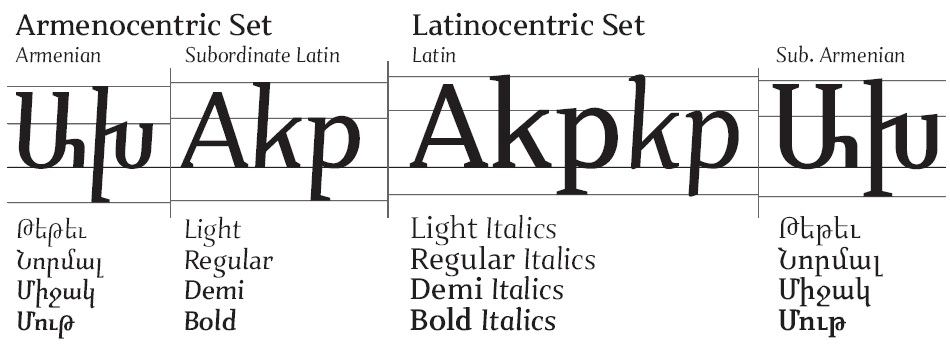
Having spent a little time in the arctic, in what is now Nunavut, I’m a little taken aback by this. I suppose it’s no different from Mohawk Paper, or Shiite Paper, or Maori Paper, but it seems either completely un-PC, or just flat-out culturally-ignorant to name one’s company Inuit Paper. (I’m guessing the company isn’t based in Iqaluit.)
And it’s sad to see the Inuktitut syllabics writing system used by the Inuit - although designed in the 1870s by a kablunak, Edmund Peck - repurposed as the latin alphabet. Maybe I’m a genuine party-pooping stick-in-the-mud, but I find this kind of appropriation of another writing system for kicks and kitsch to be disrespectful. Other examples are provided by FSI, who published FF Bagel and FF Falafel which are meant to look, respectively, like Hebrew and Arabic scripts. (Nor am I crazy about mock-Gaelic, mock-Cyrillic, or mock-Greek fonts, or any other fonts aping the look of other fonts.)
I’m sure that I’m going to catch a hot pile for saying this, but in my opinion Inuit Paper and its faux-Inuit alphabet isn’t clever; it’s disrespectful. I’m a fan of Jeremy’s, which makes my disappointment doubly keen.
I’m sure Ross will have his own take on this... but the typeface strikes me as a joyful cross-pollination of Euphemia UCAS and the whole range of private, personal, code-like alphabets. I was cleaning out some aging floppies the other day and came across FUSE which certainly helped spread this genre.
As far as the co-opting of Inuit identity to sell paper, well that is certainly another discussion. Is typography is the place to spend our moral outrage?
Amy, thanks for linking to the Flash animation about the develoment of the font. I was so appalled by the condescending tone and purple prose - almost certainly nothing to do with Jeremy - that I had to transcribe it:
This is where it all began - the Inuktitut alphabet. These strangely alien shapes and squiggles provided the raw material for our new typeface.
It’s a surprisingly modern collection of characters, as the Inuit people only developed a written language in 1890s, in an effort to preserve their history and identity.
Examples of work in progress - these early sketches by typographer Jeremy Tankard drew heavily on the character and composition of the Inuktitut alphabet.
Ideas and variations were explored before a set of guiding principles for the Inuit typeface emerged.
While some letters took their shape directly from the Inuktitut alphabet, others are based on more familiar Roman letterforms.
This helped create an overall sense of balance, harmony and legibility.
Inuit is a highly versatile typeface. It was originally designed as a display font for headlines and big text.
But, because of the way the traditional and ethnic shapes work together, it’s just as legible and engaging in smaller sizes.
Ultimately, Inuit’s eye-catching appearance is redolent of its origins.
Jagged edges counterpoint sleek curves, suggesting the Arctic landscape and indigenous way of life.
Some of the original Inuit shapes seemed a little too extreme, so we developed various alternative characters.
This means you can always add a bit of variety to your text setting, or choose the version that best suits a particular design.
Also included are several pairs of letters which flow together - technically known as ’ligatures’ - to add texture and rhythm to typeset text.
Generally fonts only include fl and fi, but Inuit has several more, emphasising its fluency and organic form.
There is plenty of fodder there for my upset. The text is condescending AND inaccurate, which is a heady mix. Any copywriter with an internet connection could have dialed up this WIKIpedia entry to get some background on the Inutitut Syllabics writing system, which was developed not by Inuit “to preserve their history and identity”, but by missionaries to spread the word of their god to the animist peoples of the arctic.
If Arjo Wiggins means to say that their new range of paper is snow-white, they don’t need to do so in such a culturally-insensitive and imperialist way. The name is bad enough, and the appropriation of Inuktitut syllabary and its “strangely alien shapes and squiggles” is adding insult to injury.
Faux-alphabet faces are visual puns — the worse they are, the better they are. Step right up Ladies and Gentleman and see the Latin typeface that looks like Inuit/Hebrew/Chinese! Harmless stuff, really, because never more than a novelty, display faces of limited application.
The problem is in providing a serious rationale, which is a necesssary part of the commission here; any PR rationalizing a groaner is inherently pretentious (a hazard for typeface rationales in any case), and unless handled with extreme tact will run into PC difficulty, which is what’s happened. chester is spot on.
Not the same situation as JT’s Shaker, also inspired by cultural simplicity, because no alphabet “mockery” was involved in that.
> Harmless stuff, really, because never more than
Or you could say a deeper order. Anyway, I agree.
My contention is that as a rule “formal regularity”
has been limited entirely to things like lining up
x-heights and copy-pasting serifs.
Hrant, you’re on to something with your “doubly bi-lateral” approach, and the component parts are fine (the lightest weight of Patria Armenian is very classic), but you haven’t delivered everything you claim and there are still some family design issues to resolve.